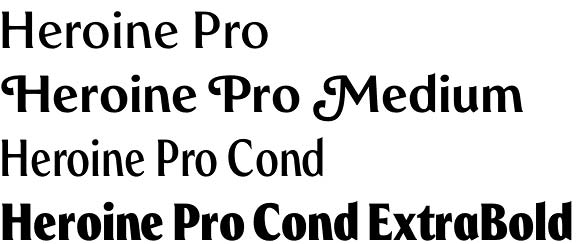
Heroine Pro font
Heroine Pro font is one of those attractive fonts designed with a lot of personality and attention streaming from the roots of older typefaces. Heroine is a reflection and revival of the Windsor typeface designed by Eleisha Pechey in 1905. Speaking of revival, we underline that revival here means mostly inspiration – this hot new one has nothing in common with the round shapes of Windsor. It is designed with stylish contemporary look, flared stems and sharp edges. Strong presence and a lot of character developed in two main styles – normal and condensed, each of them featuring 5 and 4 different weights. Additionally you’ll be able to operate with a extended set of Open type characters like ligatures, alternates and even swashed letterforms. Bringing back the spirit of late 19th and early 20th century, Heroine Pro shows one of the best ways how a modern approach could restore an old tradition. Excellent solution for editorial design, book covers and posters, vintage looking brand names and even logos. Due to its well manipulated contrast, apertures and larger x-height Heroine is perfect to tackle both print and onscreen challenges which makes it perfect not only for print graphics but for e-books, web-sites, apps etc. Also great choice for those who want to use it printed with hot-foil or deeply embossed on textured paper.